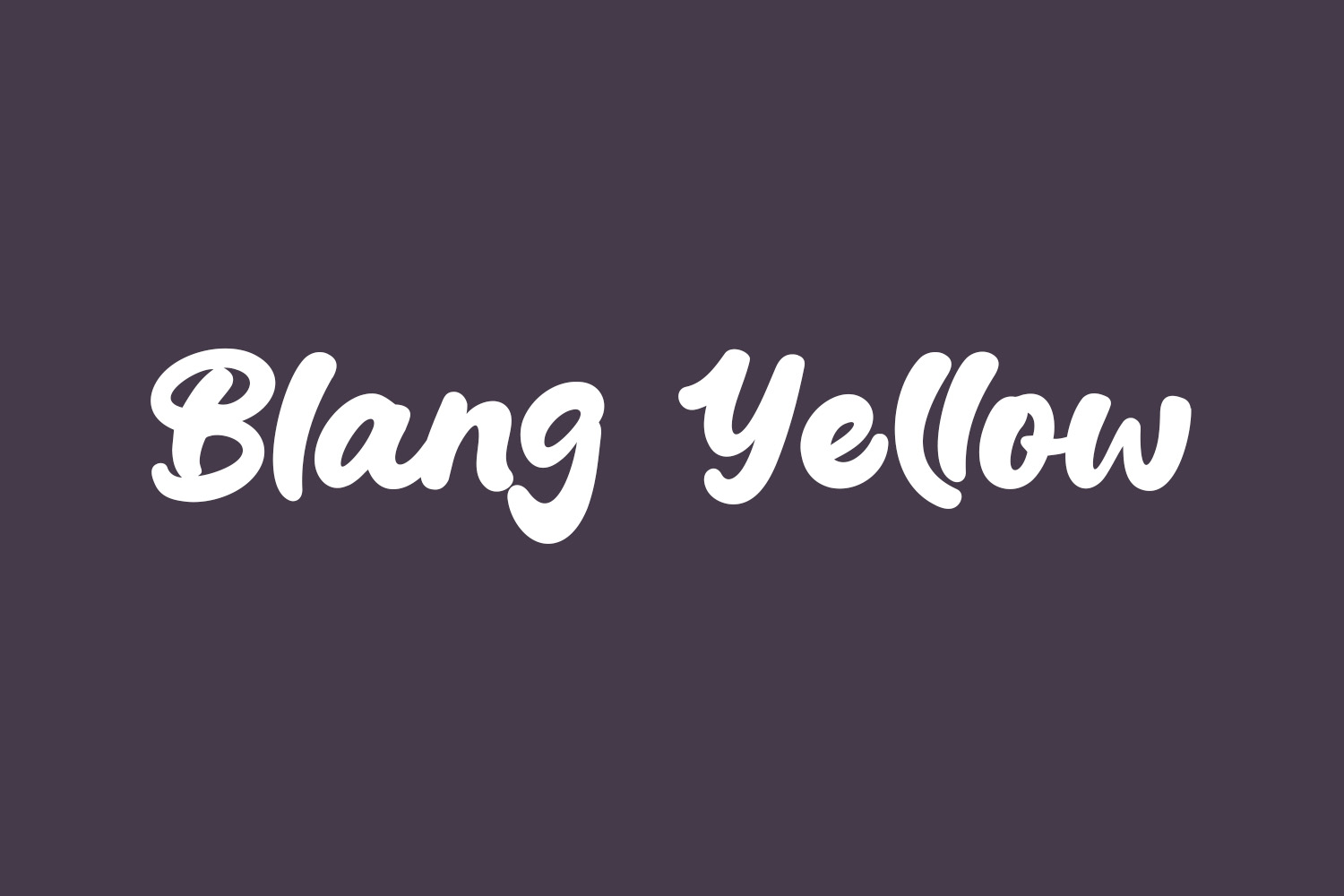
Blang Yellow Free Font is a fun and playful handwritten font that brings a burst of energy and creativity to any project. With its unique and irregular lettering style, it adds a personal touch and a handmade feel to your designs. This free font is perfect for creating eye-catching headlines, posters, and social media graphics that stand out from the crowd. Whether you’re a designer, a blogger, or a creative professional, Blang Yellow is the perfect font to add a touch of personality to your work.